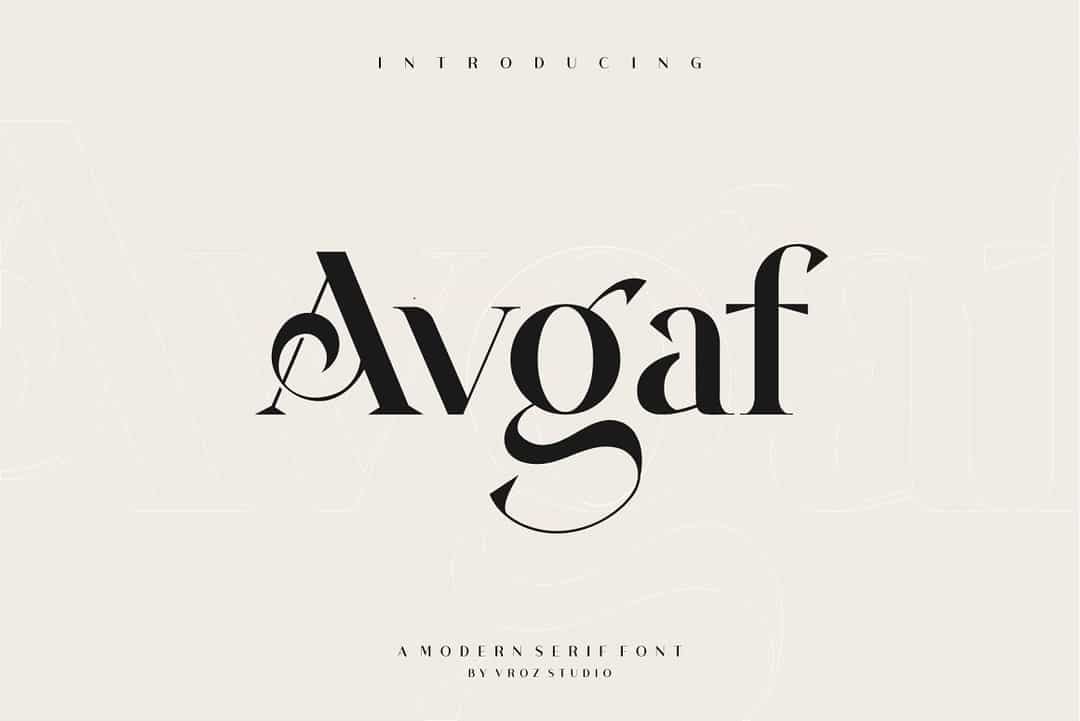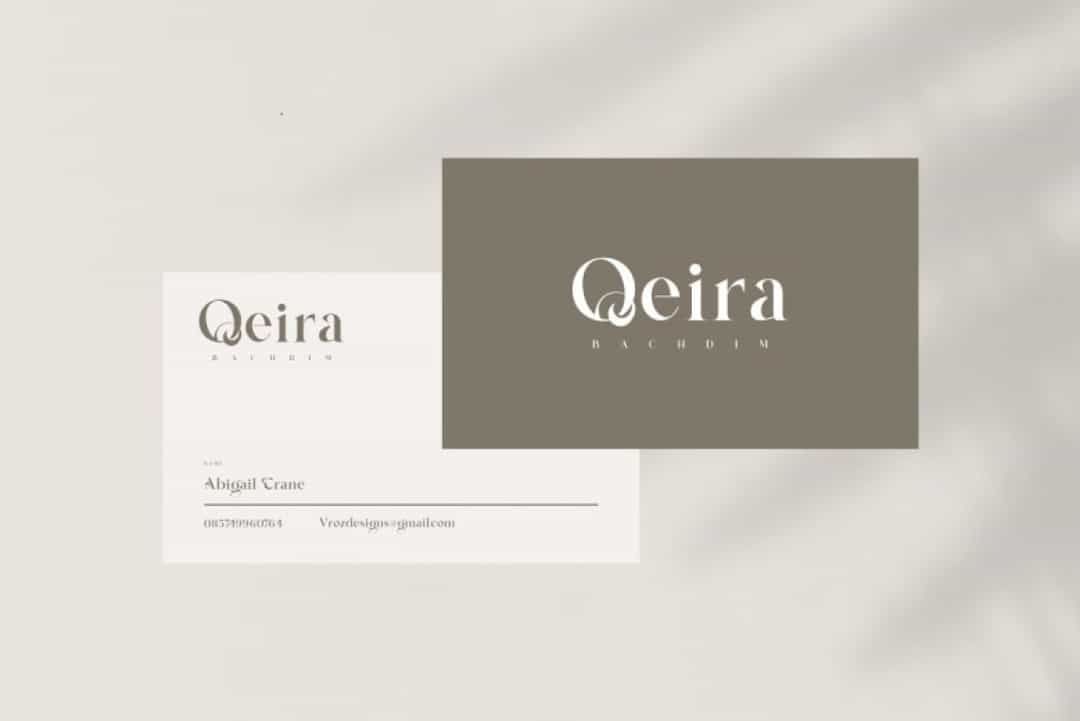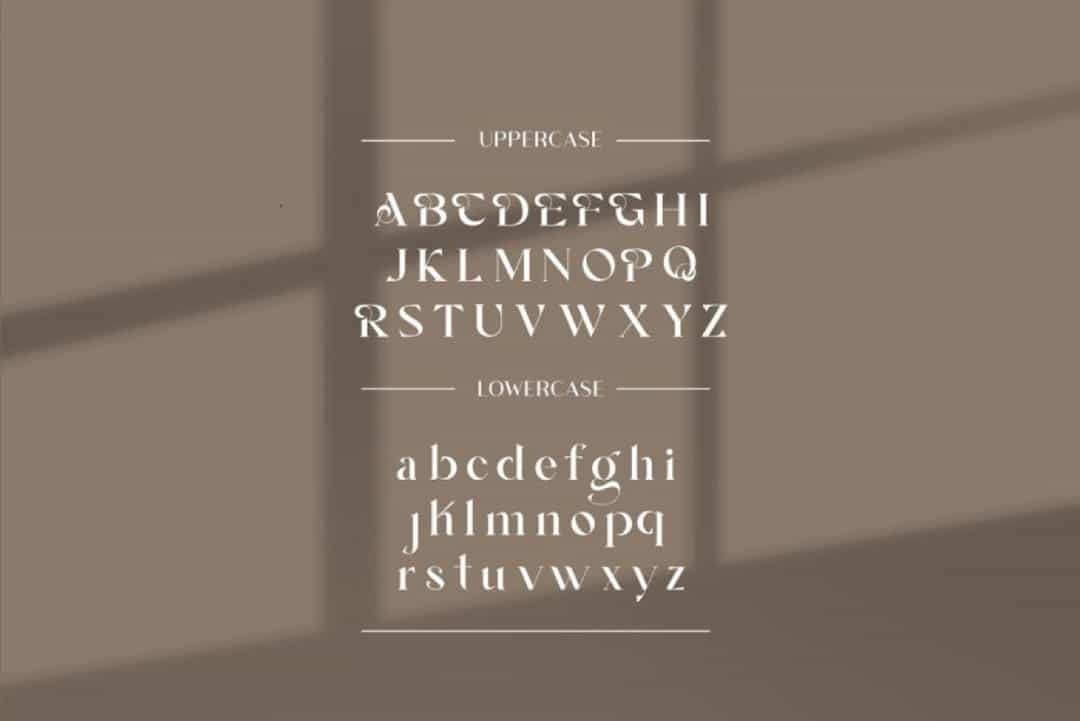
Discover Avgaf Font, part of the Serif collection—a versatile and unique font perfect for adding a personal touch to your projects. Download it for free and enjoy crafting designs with style, from invitations to social media posts. This font is available exclusively for personal use, giving you the freedom to create without limits. Unlock your creativity with Avgaf Font today!
AVGAF A Modern Serif Font is perfect for use in many projects such as magazines, fashion logos, branding photography and photography, wedding invitations and invitations, blog headers, quotes posters books postcards websites etc.